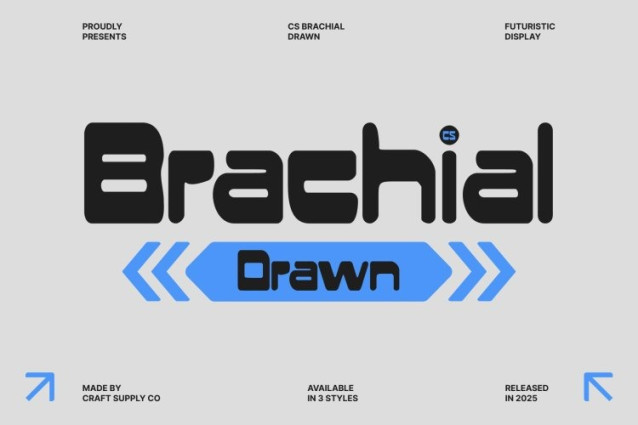
CS Brachial Drawn Font
CS Brachial Drawn Font This is an edgy futuristic sans serif font inspired by high-energy techno aesthetics and experimental design. Featuring striking reverse contrast and sharp geometric construction, this font delivers a powerful visual impact that feels bold, modern, and cutting-edge. The hand-drawn texture adds character, giving the precision-driven forms a raw, expressive edge.
Dynamic Shapes with Futuristic Appeal
The reverse contrast structure flips traditional typographic expectations, creating a distinctive and forward-thinking look. Sharp angles, compact proportions, and rhythmic letterforms generate a strong sense of motion and digital intensity. This dynamic design language makes the font feel fast, mechanical, and alive perfect for futuristic and tech-driven visuals.
Perfect for Branding and Visual Statements
This font excels in logos, branding systems, posters, album covers, and bold visual campaigns. Its assertive structure ensures maximum visibility in both print and digital environments. Ideal for technology brands, electronic music projects, gaming visuals, and creative studios, the font helps establish a modern, high-impact identity.
Bold, Modern, and Electrically Charged
More than just typography, this font delivers attitude and innovation. Its techno-inspired form, experimental contrast, and drawn texture combine to create a font that radiates power and sophistication. Use it to inject futuristic energy into your designs and craft visuals that feel daring, advanced, and unmistakably modern.